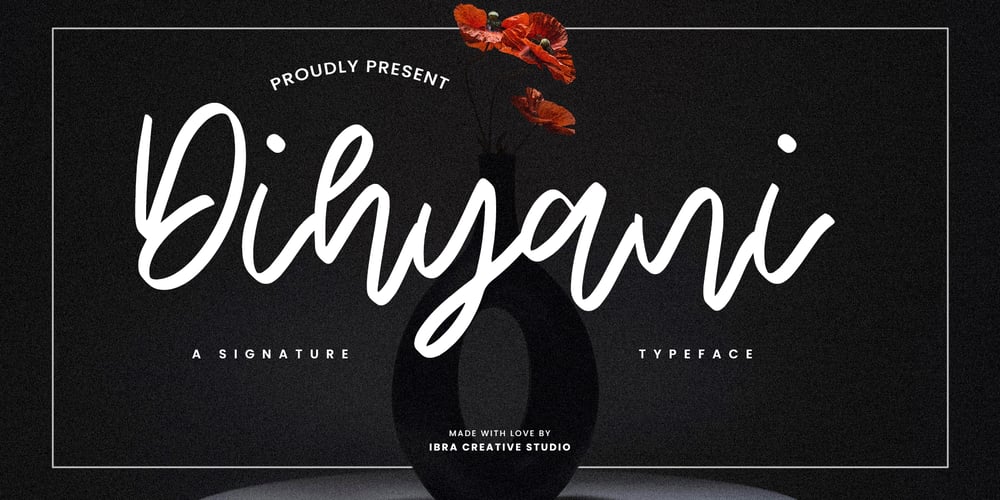
Dihyani Font Family was designed by Roisatul Azizah and published by IbraCreative. Dihyani contains 1 styles and family package options. Dihyani – A Signature TypefaceDihyani, an exquisite signature typeface, epitomizes elegance and sophistication with its fluid strokes and graceful curves. Each letter in Dihyani exudes a sense of personalized charm, capturing the essence of a handcrafted signature. Perfect for adding a touch of refinement to invitations, branding, or editorial designs, Dihyani effortlessly combines timeless beauty with modern flair. Its versatility allows it to adapt to various contexts, from formal documents to artistic endeavors, making it an indispensable tool for designers seeking to elevate their projects with a touch of sophistication and individuality. Dihyani is perfect for branding projects, logo, wedding designs, social media posts, advertisements, product packaging, product designs, label, photography, watermark, invitation, stationery, game, fashion and any projects.Fonts include multilingual support for; Afrikaans, Albanian, Czech, Danish, Dutch, English, Estonian, Finnish, French, German, Hungarian, Italian, Latvian, Lithuanian, Norwegian, Polish, Portuguese, Slovak, Slovenian, Spanish, Swedish.